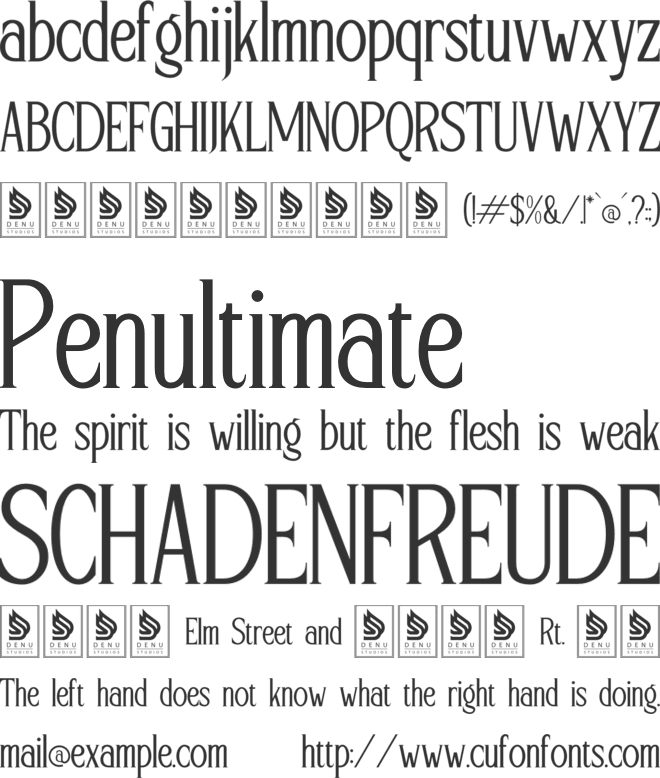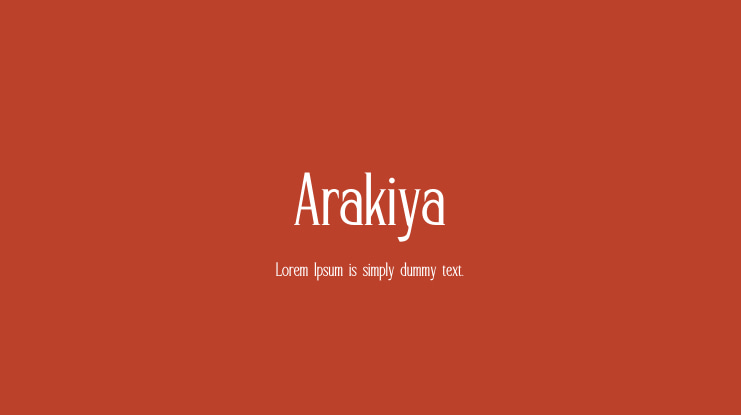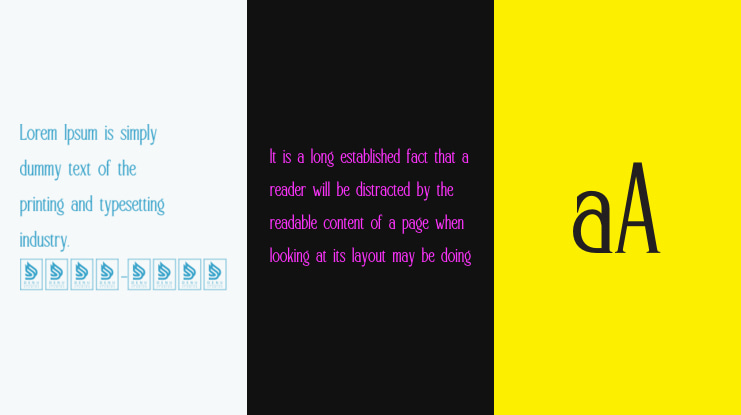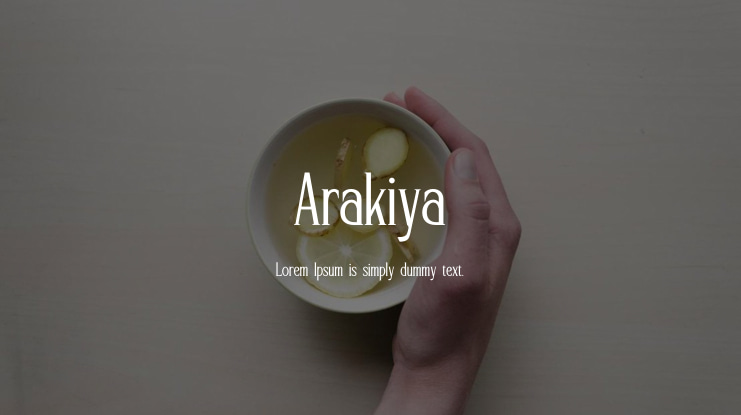
### Arakiya | Unique Condensed Serif
Arakiya | Unique Condensed Serif is perfect for an array of projects such as:
Enhance your lovely projects with a Unique Condensed Serif touch!